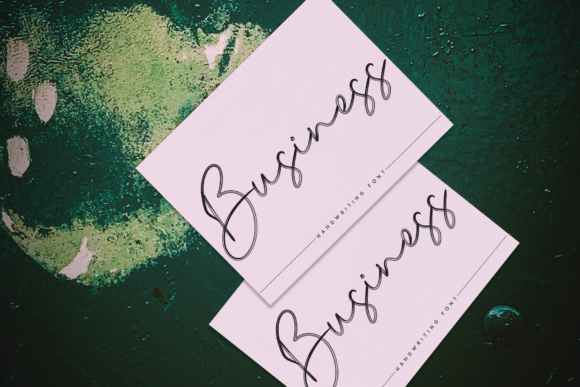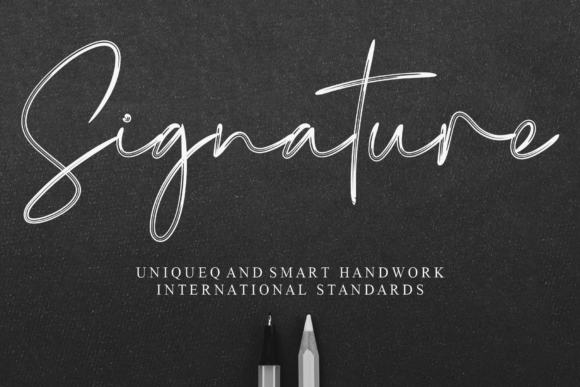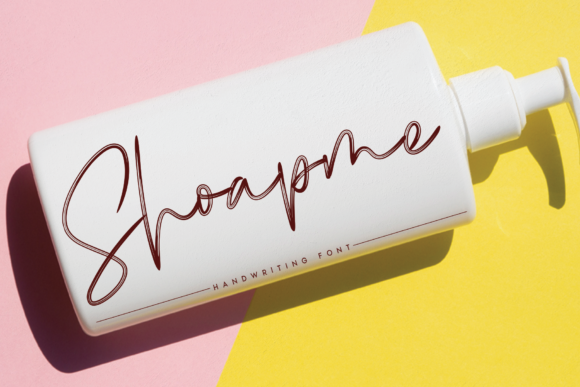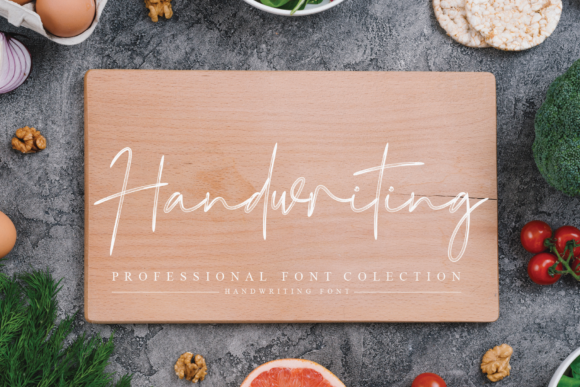
Christmas Snow Winter Font: A Magical Typeface for Your Holiday Designs
As the winter season approaches, designers and crafters begin to look for inspiration to create stunning holiday-themed projects. One essential element that can elevate your designs is a beautiful font that captures the essence of the season. Introducing Christmas Snow Winter Font, a gorgeous and cursive handwritten font that’s perfect for adding a touch of elegance and whimsy to your creations.
What Makes Christmas Snow Winter Font Special?
Christmas Snow Winter Font is a unique and versatile typeface that’s designed to bring a sense of joy and festivity to your designs. Here are a few characteristics that make it stand out:
- Elegant and Relaxed: This font boasts an elegant and relaxed feel, making it perfect for a wide range of design applications, from holiday cards and invitations to packaging and branding.
- Cursive Handwritten: The cursive handwritten style of Christmas Snow Winter Font adds a personal touch to your designs, giving them a warm and cozy feel that’s perfect for the winter season.
- Highly Versatile: Whether you’re designing for print or digital, this font is ideal for various projects, including social media graphics, blog posts, and more.
Why Choose Christmas Snow Winter Font for Your Designs?
With Christmas Snow Winter Font, you can unlock a world of creative possibilities. Here are some reasons why designers and crafters love this font:
- Easy to Read: The clear and legible design of this font ensures that your message is conveyed effectively, making it perfect for body text and headings.
- Customizable: You can easily customize the font to fit your brand’s style and tone, making it a great addition to your design toolkit.
- Time-Saving: With Christmas Snow Winter Font, you can create stunning designs in no time, thanks to its effortless elegance and versatility.
Ideas for Using Christmas Snow Winter Font
Now that you’ve fallen in love with this beautiful font, here are some ideas to get you started:
- Holiday Cards and Invitations: Create stunning holiday cards, invitations, and gift tags that will make your loved ones feel special.
- Social Media Graphics: Design eye-catching social media graphics, including Facebook posts, Twitter headers, and Instagram stories, that will spread holiday cheer.
- Branding and Packaging: Add a touch of winter magic to your branding and packaging with Christmas Snow Winter Font, perfect for seasonal promotions and product launches.
- Blog Posts and Articles: Create engaging and festive blog posts and articles that will captivate your audience and get them in the holiday spirit.
Tips for Pairing Christmas Snow Winter Font with Other Fonts
To take your designs to the next level, consider pairing Christmas Snow Winter Font with other complementary fonts. Here are some tips:
- Combine with a Bold Font: Pair Christmas Snow Winter Font with a bold font for a striking contrast that adds visual interest to your designs.
- Match with a Serif Font: Combine Christmas Snow Winter Font with a serif font for a classic and elegant look that’s perfect for formal designs.
- Experiment with Script Fonts: Pair Christmas Snow Winter Font with other script fonts for a playful and whimsical feel that’s ideal for festive designs.
Christmas Snow Winter Font is a beautiful and versatile typeface that’s perfect for adding a touch of magic to your holiday designs. With its elegant and relaxed feel, this font is ideal for a wide range of design applications, from holiday cards and invitations to branding and packaging. Let your imagination run free and create outstanding projects with Christmas Snow Winter Font.